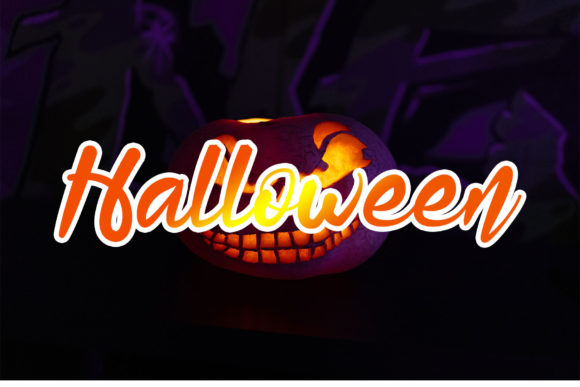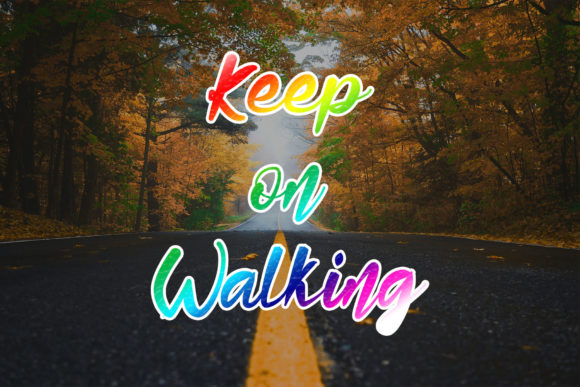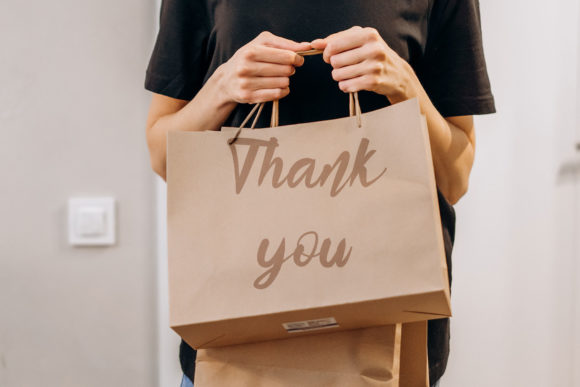
About Dark Pumkin Font
Introducing “Dark Pumpkin,” a versatile and clean handwritten font that adds a touch of authenticity to your branding projects.
With its natural and neat appearance, Dark Pumpkin is the perfect choice for a variety of design applications. Whether you’re working on logos, t-shirt designs, sports-related graphics, or any other creative project, this font brings a sense of understated elegance that elevates your work.
Dark Pumpkin’s balanced and well-crafted letters make it stand out while maintaining a sense of simplicity. Its versatility allows it to seamlessly fit into a wide range of contexts, making it an excellent addition to your design toolkit.
Imagine the impact of Dark Pumpkin on your logo, creating a memorable and distinctive brand identity that leaves a lasting impression. Its refined style adds a professional touch to any visual representation of your business.
Dark Pumpkin’s timeless appeal also makes it suitable for sport designs, adding a dash of character and authenticity to athletic-themed projects. Whether it’s team merchandise, promotional materials, or event branding, Dark Pumpkin brings a fresh perspective to the table.
Capture the essence of rustic charm with Dark Pumpkin. Its natural handwritten feel adds a touch of warmth and sincerity to your designs, making them relatable and engaging to your target audience.
Let Dark Pumpkin be the go-to font that effortlessly enhances your branding projects. Its clean, natural, and neat appearance ensures that your designs will look outstanding in any context, leaving a lasting impact on your audience.